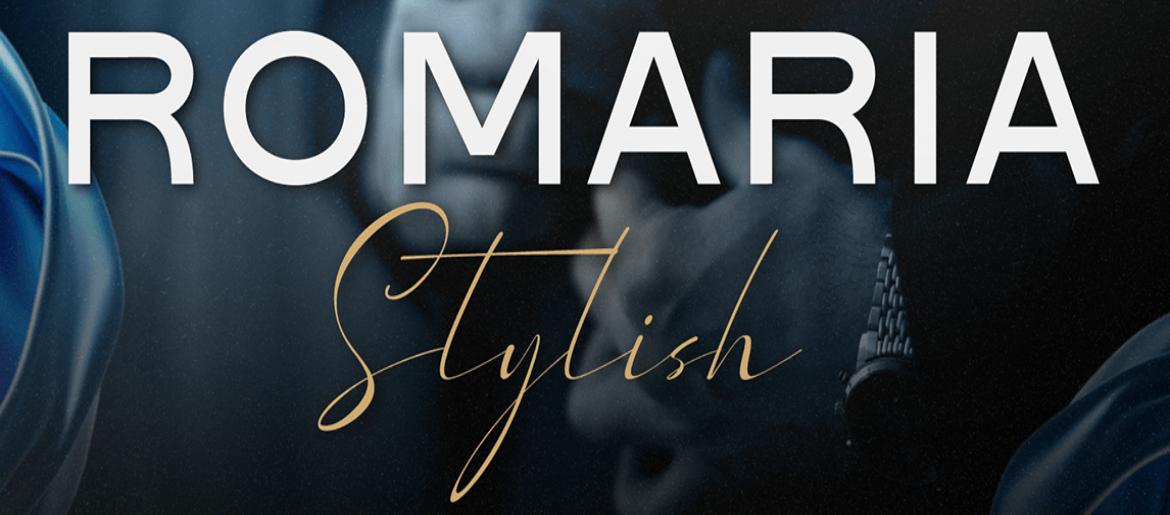
Romaria Stylish Font
Romaria Stylish Font is a modern elegant typeface designed to deliver timeless sophistication with a clean contemporary feel. Featuring two complementary styles, a sleek sans serif and a graceful script, it allows balanced visual contrast within one design. Ideal for branding, invitations, editorials, and luxury visuals, it brings refined harmony and stands out among versatile free fonts collections.
➤ Font Name: Romaria Stylish
➤ Designer: Eric Burntilldead
➤ Style: Sans Serif, Script